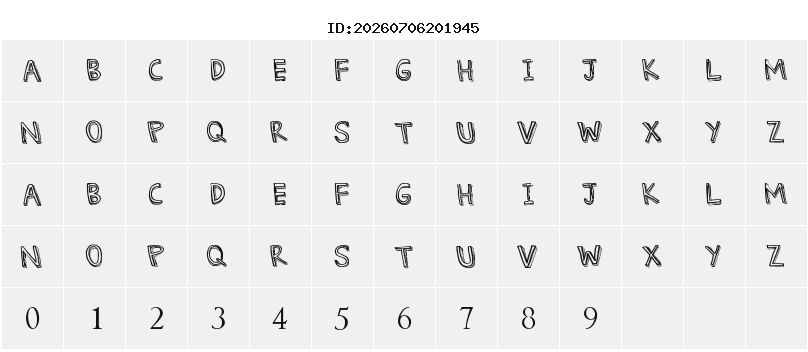
Denne Threedee Preview
• Font Name: Denne Threedee
• Full Font Name: Denne Threedee
• Version: Version 1.00 May 27, 2008, initial release
About Denne Threedee.ttf
Denne Threedee.ttf is a modern, elegant sans-serif font designed for ultimate readability and visual harmony. Perfect for branding, headlines, web design, and print materials.